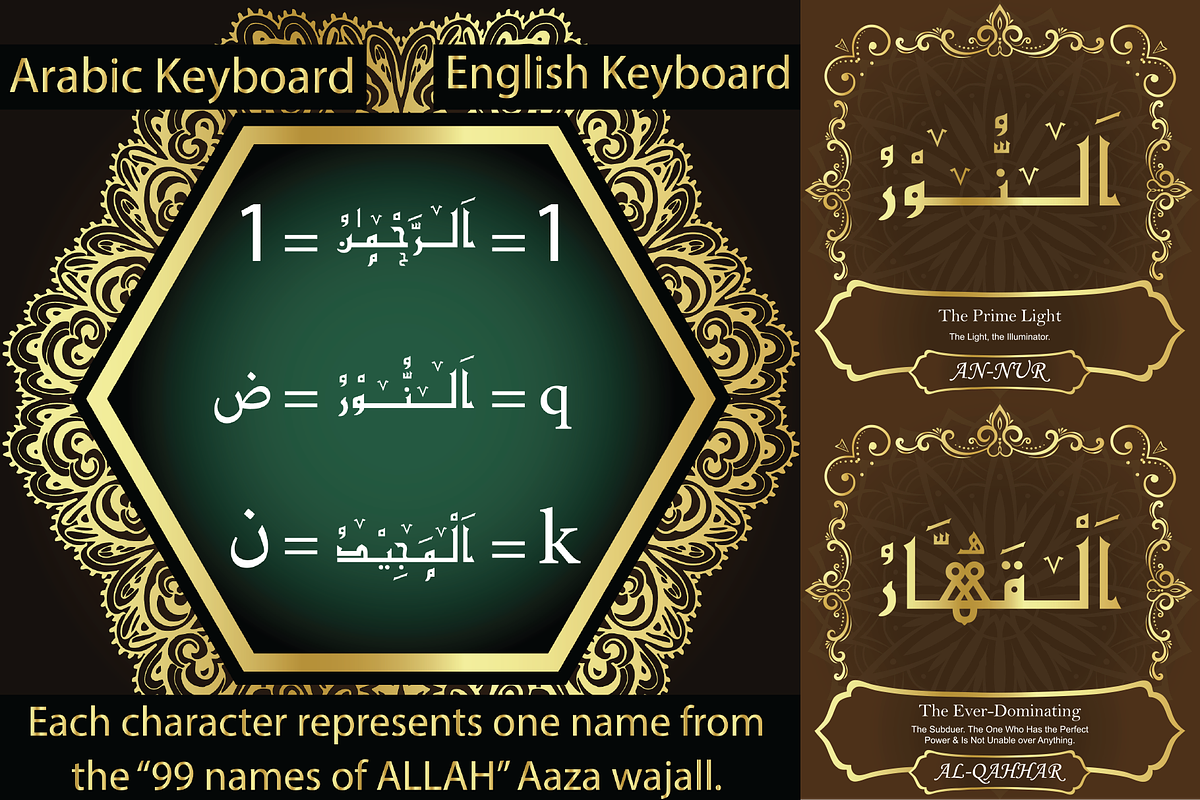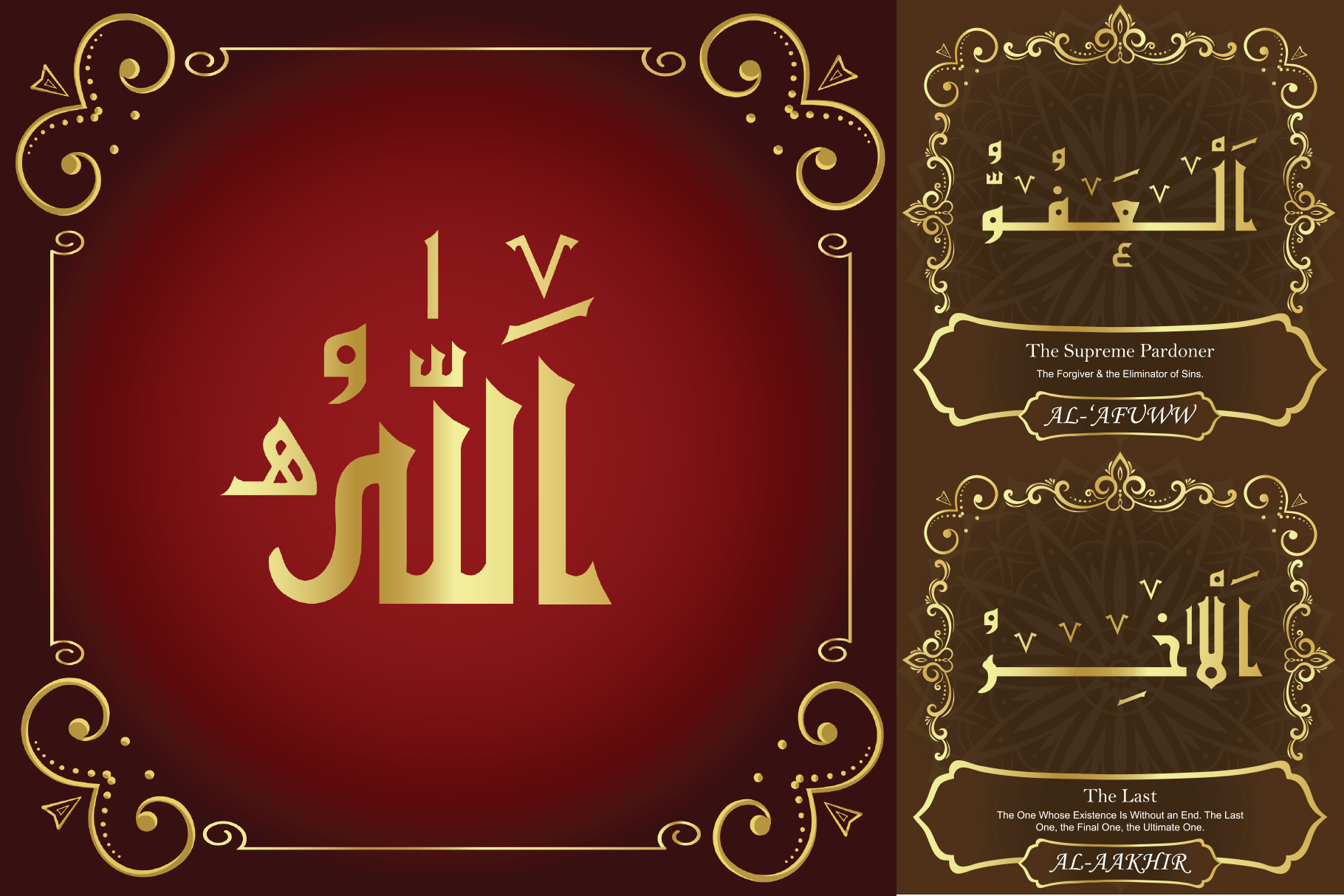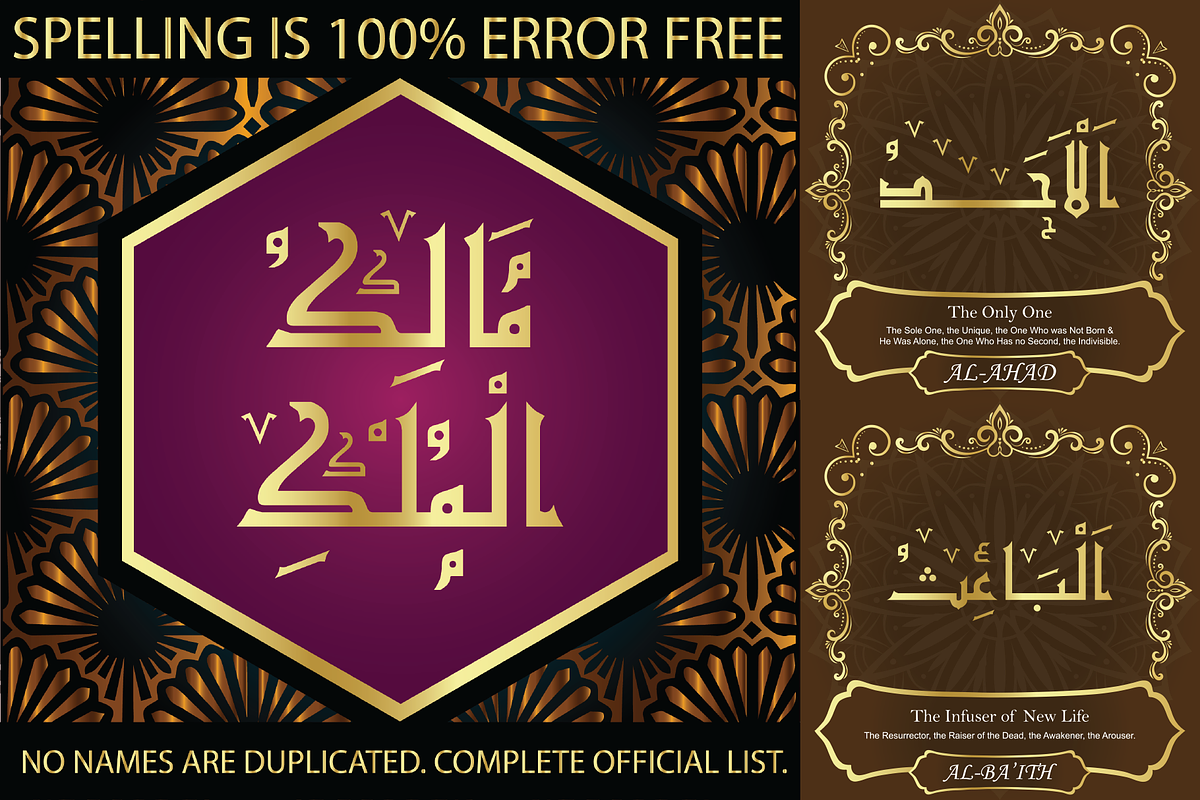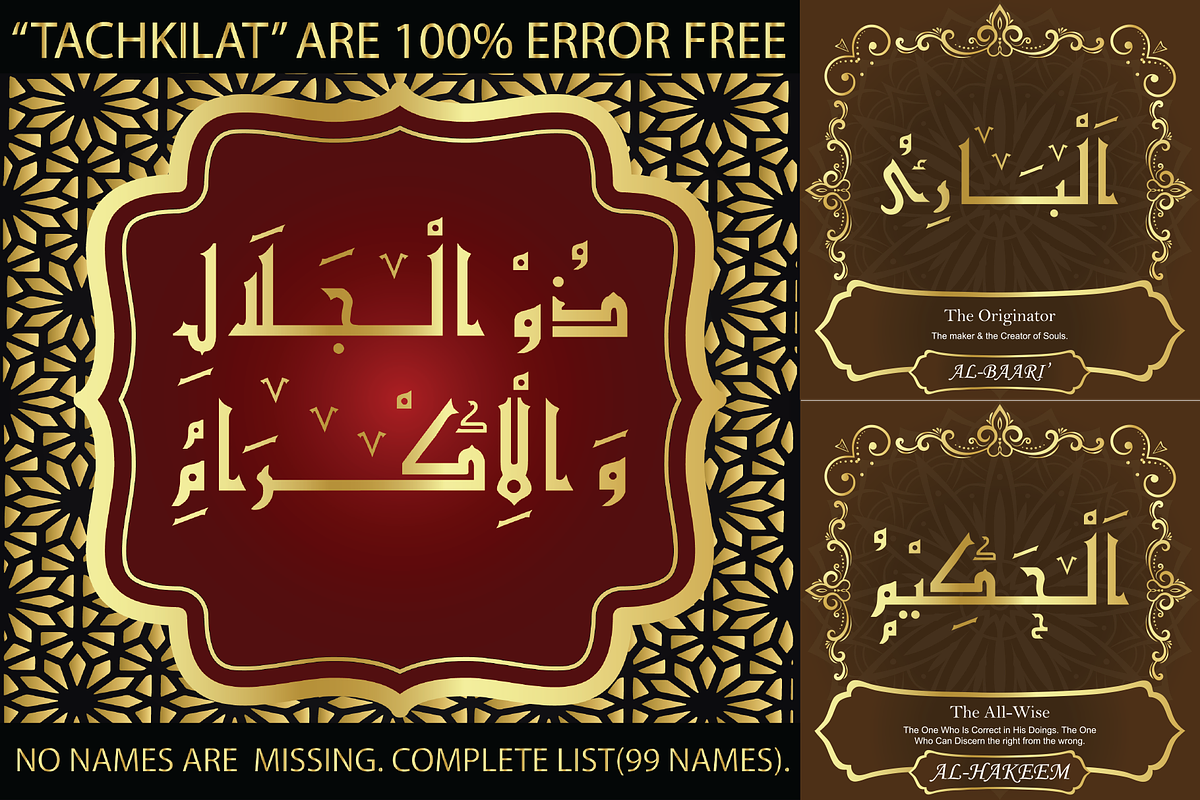
99 Names of ALLAH "Straight" Font
We have transformed the “99 names of ALLAH” into a font. That means each key on your keyboard represents 1 of the 99 names of ALLAH Aaza Wajal. The fonts work with both the English and Arabic Keyboards.
We call this Calligraphy "Straight" because of the straight like design. Everything is clear, symmetric and straight. The first "Alef" has a "fatha", this indicates to pronounce the first letter. So instead of saying
"R-RAHMAAN" you say "AR-RAHMAN" (in the zip file you will find a pdf file explaining the differences in the "harakat", pronunciation and spelling according to the Holy Quran). We went for the traditional "soukoun" instead of the Quranic "soukoun" & the decorative symbols are at a minimum. Decorative letters used in this calligraphy: "Mim, Aain, Sin, HHe, He & Kaf".
Purpose & use:
- Writers: Highlight the names in your texts in beautiful Islamic calligraphy.
- Editors: Use with kinetic typography templates (AE) & editing software.
- Designers: The very small details in the names does not affect the quality. Rest assured it is flawless.
The MOST IMPORTANT THING about this list is that all the names are 100% ERROR FREE, and you can USE THEM WITH YOUR EYES CLOSED. All the “Tachkilat” are 100% ERROR FREE, all the "Spelling" is 100% ERROR FREE, and they all have been written in accordance with the Holy Quran. No names are missing and no names are duplicated. The list is complete "99 names +1". The +1 is the name “ALLAH” 'Aza wajal.
Another important thing is how we use the decorative letters. In every font you will see small decorative letters, these letters are used only in accordance with their respective letters to indicate pronunciation & we don't include them randomly. That means "mim" on top or below the letter "mim", "sin" on top or below the letter "sin", and so on and so forth.